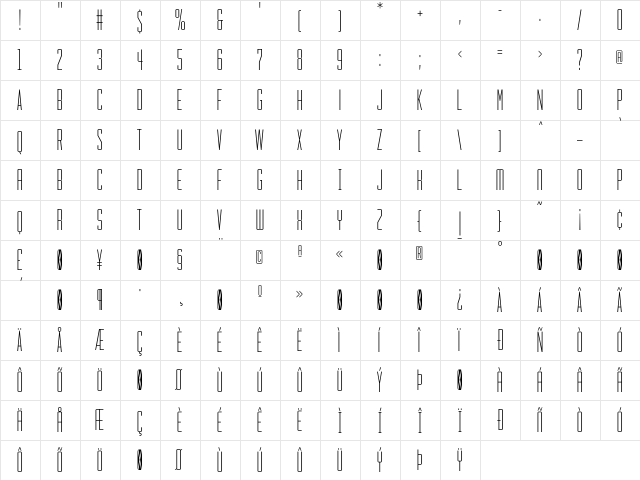
HeraldGothic Light
Design Context for HeraldGothic Typeface
HeraldGothic takes a clean, functional approach — its unadorned letterforms prioritise legibility and work reliably across screen and print environments. Its slender proportions lend an understated elegance to any composition.
A natural fit for high-end product packaging, luxury brand identities, and refined web typography.
Font Pairing: Pair HeraldGothic with a medium or bold serif for headlines — the weight contrast creates an elegant, high-end feel.
Pro Tip: Use HeraldGothic with generous tracking and line-height for the most luxurious effect — light sans-serifs reward spacious, considered layouts.